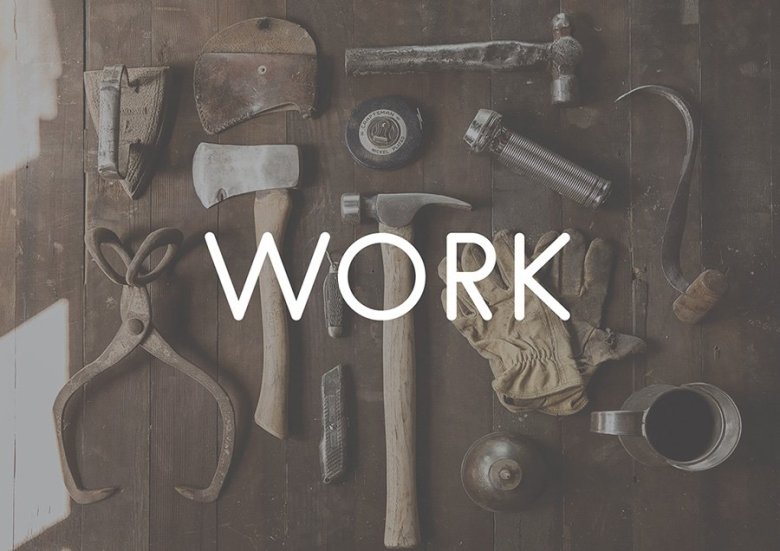
Hanken Font
Hanken Free Font is a simple, rounded free sans-serif font that is modern and minimalist. It is can be use for anything; from logo to poster, or anything that you may think it fits. Hanken comes up with two family: Book and Light. Combine both weights to get the most from Hanken font.